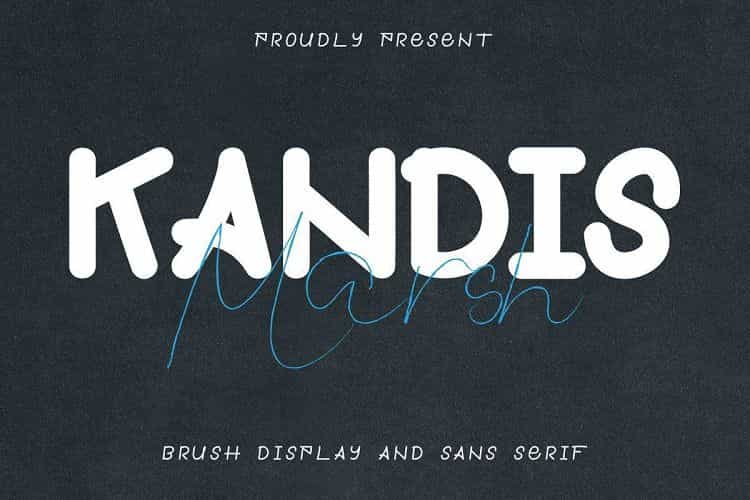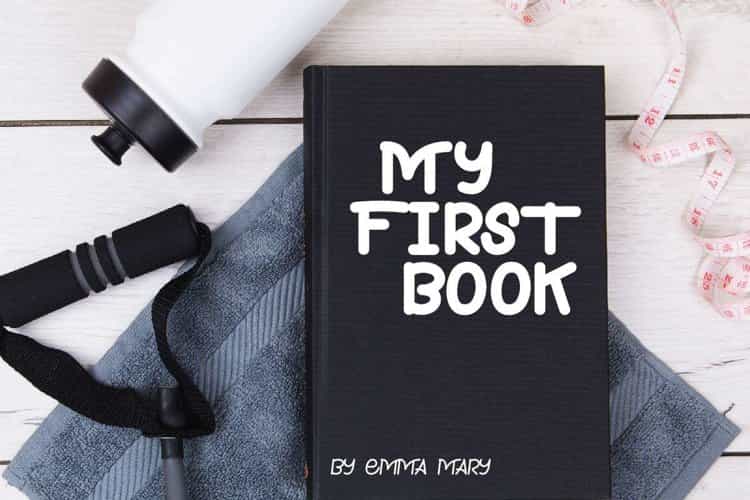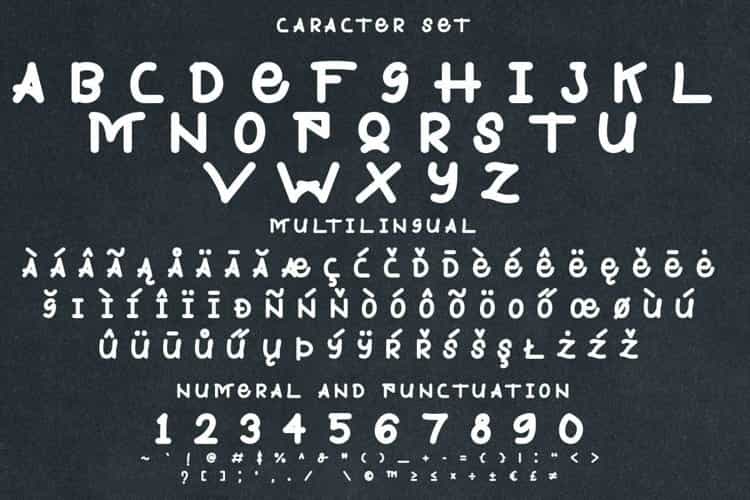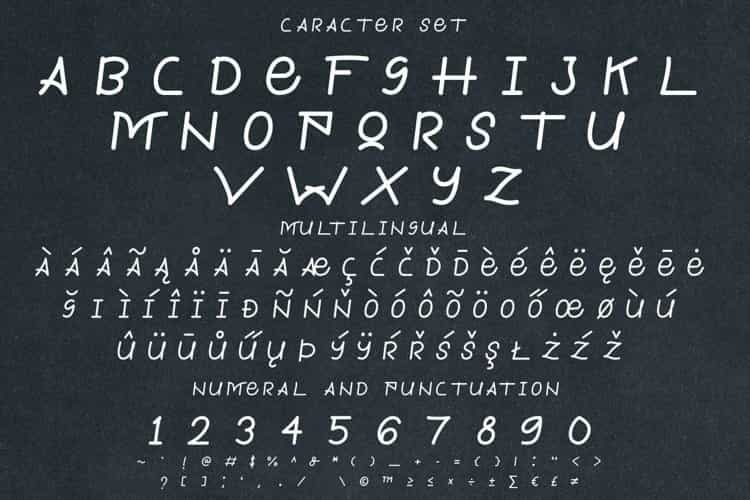
Discover Kandis Marsh Display Script Font, part of the Sans Serif Display Monoline collection—a versatile and unique font perfect for adding a personal touch to your projects. Download it for free and enjoy crafting designs with style, from invitations to social media posts. This font is available exclusively for personal use, giving you the freedom to create without limits. Unlock your creativity with Kandis Marsh Display Script Font today!
Kandis Marsh has a very good slim typeface and a large set of glyphs. This font is suitable for Logo type, flyer, stationery, business card, signage, flyers, brochure etc. As for creativity, it is limitless with this font.